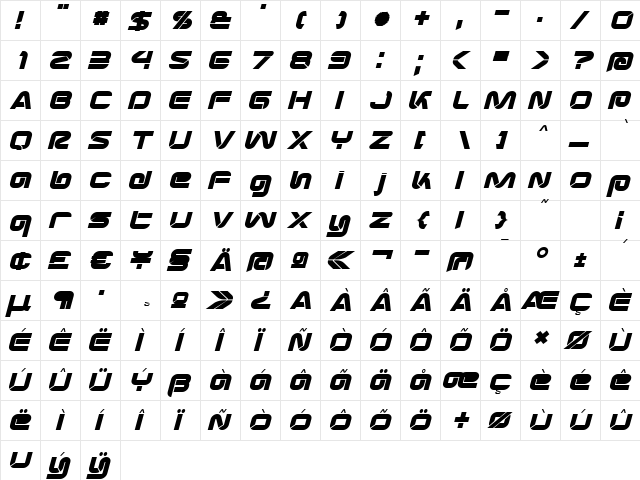
SynthesisBold Oblique Regular
Design Context for SynthesisBold Oblique Typeface
SynthesisBold Oblique is a composed and adaptable typeface that performs quietly and consistently across a wide range of design contexts. Its italic angle brings a sense of urgency and motion to the letterforms. Its bold stroke weight gives it real presence on the page.
Pro Tip: Use SynthesisBold Oblique for emphasis, pull quotes, and subheadings where its slanted energy can add rhythm to the layout.